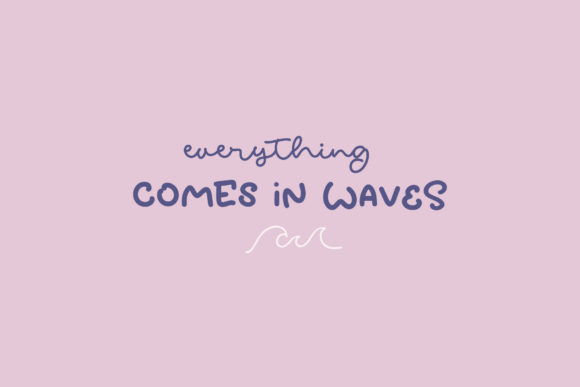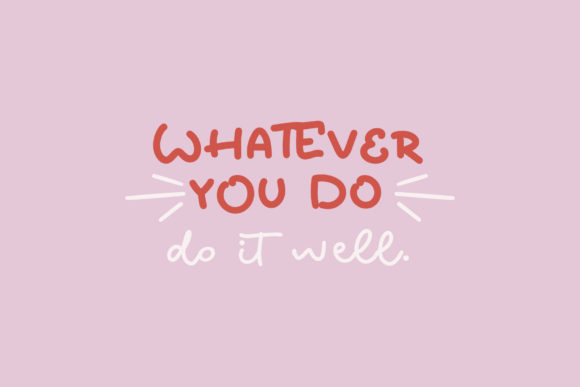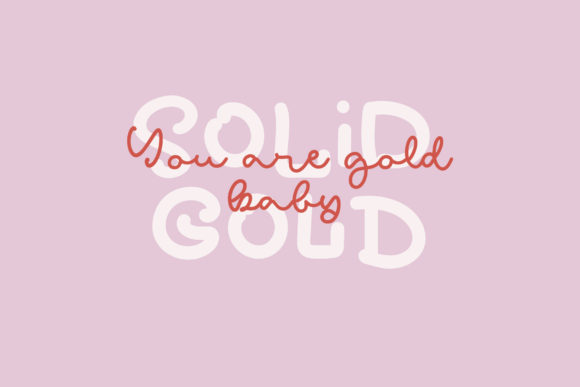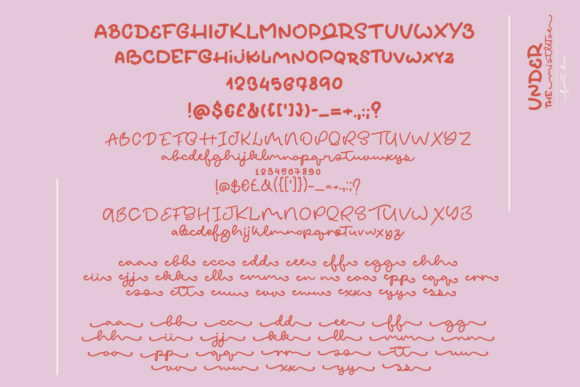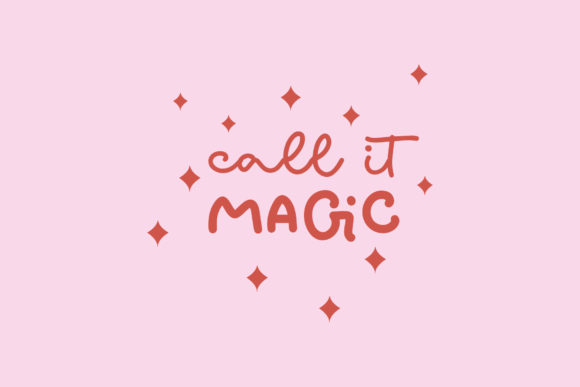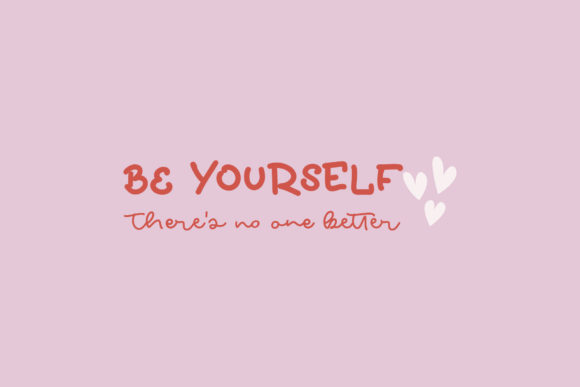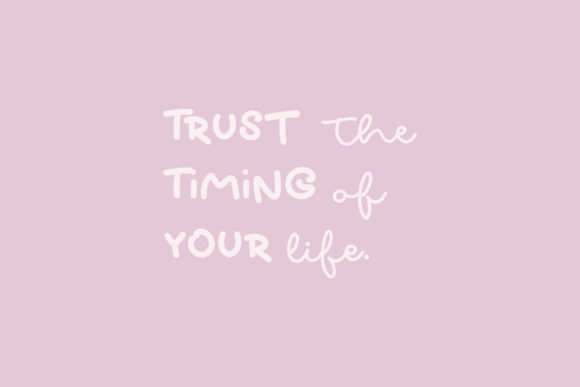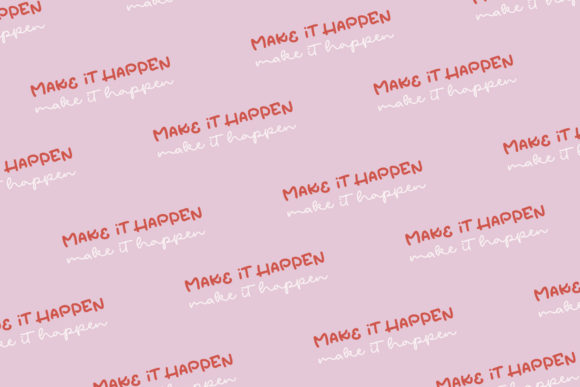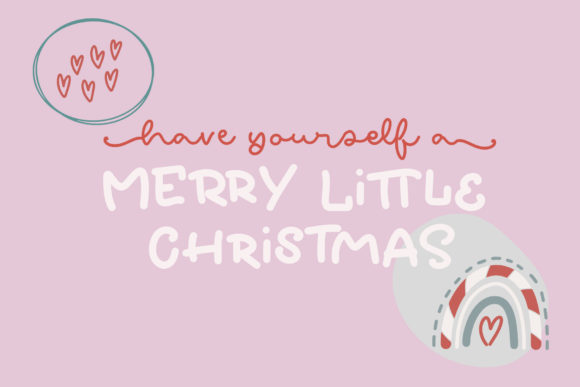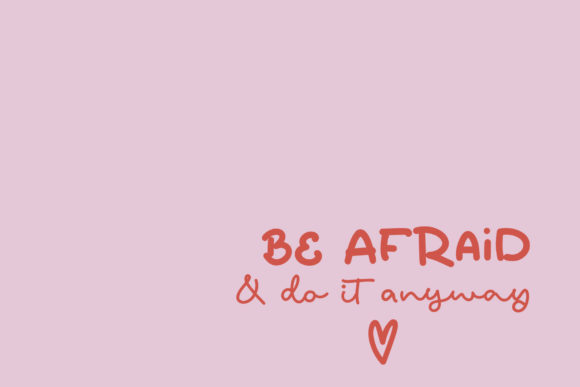
Under the Mistletoe Duo Font
About Under the Mistletoe Duo Font
“Under the Mistletoe Duo” is a font pairing carefully crafted to harmonize seamlessly. Whether used in conjunction or individually, these fonts offer an excellent way to infuse your creative projects with a chic and cheerful touch. The inclusion of PUA encoding ensures effortless access to all glyphs and swashes, enhancing the font’s versatility.
The allure of “Under the Mistletoe Duo” stems from its ability to perfectly combine elements of style and cheerfulness. Whether utilized together or separately, these fonts have the potential to enhance your designs with elegance and a sense of playfulness.
This font duo shines across various creative contexts. From crafting visually captivating materials to adding an inviting aura to your projects, these fonts can adapt to a range of design needs.
In summary, “Under the Mistletoe Duo” goes beyond just being two fonts; it’s a thoughtfully curated pairing that blends chic style with a cheerful vibe. Whether applied in unison or individually, and coupled with the convenience of PUA encoding, these fonts provide designers with the tools to inject sophistication, charm, and a joyful touch into their creations.